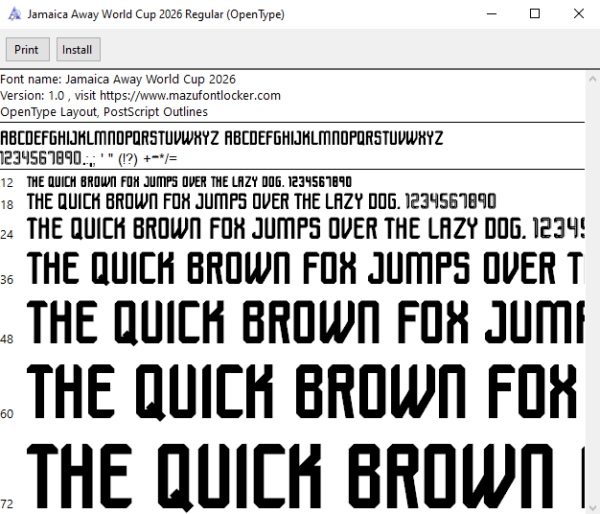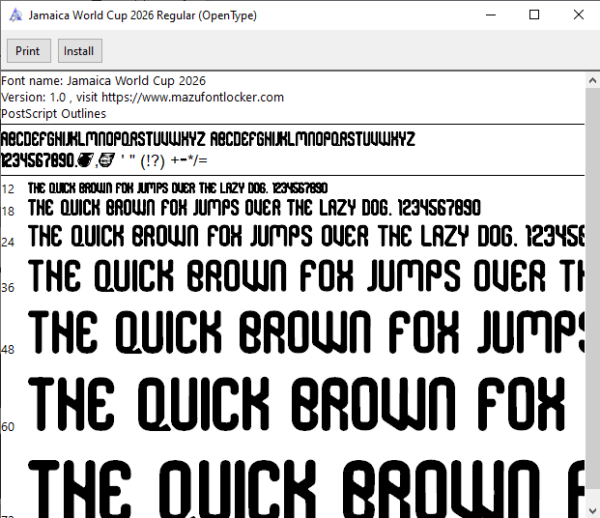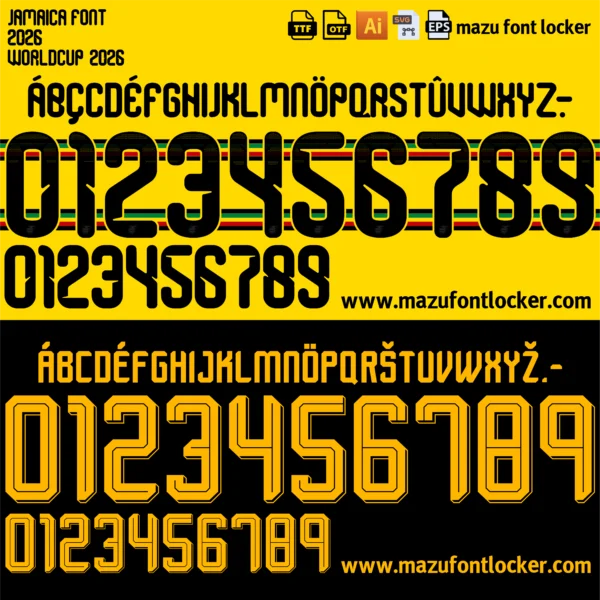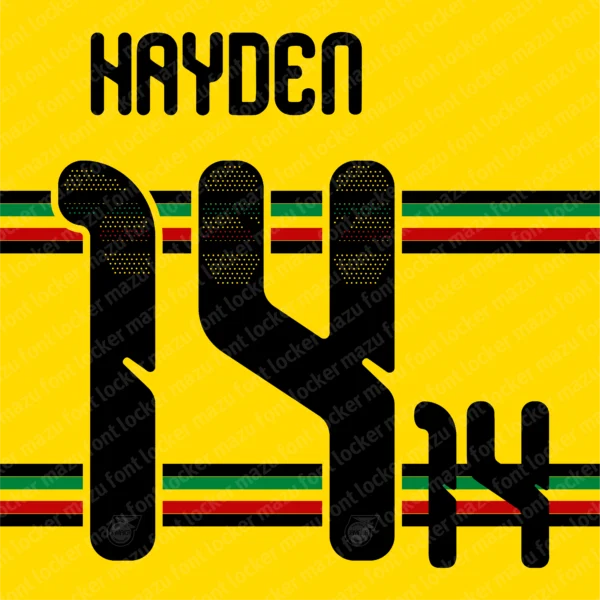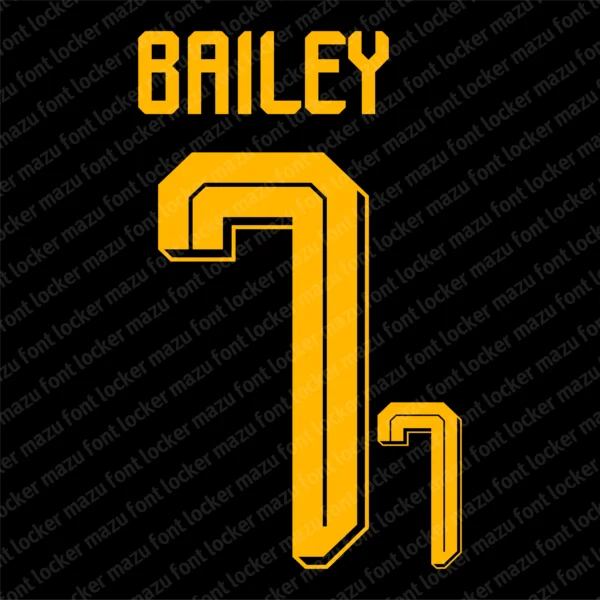
Jamaica World Cup 2026 Font Vector – Epic Reggae Boyz Vibrant Masterpiece
Download the Jamaica World Cup 2026 Font Vector (AI, EPS, SVG, PDF, OTF, TTF) and unleash the bold, powerful, and electrifying match typography that thundered across the stadiums during Jamaica’s historic 2026 World Cup campaign. This font captures the commanding, iconic, and fearless lettering that perfectly embodies the vibrant Reggae Boyz spirit, delivering unmatched passion, explosive energy, fiery Caribbean pride, and pure Jamaican fire for premium jersey mockups, football designs, epic sports visuals, and dominating fan creations.
Jamaica World Cup 2026 Font Vector – Authentic Reggae Boyz Typeface
The Jamaica World Cup 2026 Font Vector is a premium typeface that accurately recreates the official match lettering worn by the Jamaica national team during the 2026 FIFA World Cup campaign. This high-quality vector font kit captures the bold, vibrant, and energetic typography that represents the passion, spirit, and reggae flair of the Reggae Boyz.
Designed for professional designers and passionate Jamaica fans, the Jamaica World Cup 2026 Font Vector delivers perfect authenticity for creating realistic jersey mockups, fan merchandise, matchday posters, social media graphics, and Caribbean football content. It pairs beautifully with the iconic yellow home kit featuring the famous Jamaica crest.
Why Choose Jamaica World Cup 2026 Font Vector
This font stands out because of its sharp vector precision and strong national identity. Every letter and number is crafted to match the exact style used on the players’ shirts during the 2026 World Cup campaign. Whether you are making realistic kit templates or exciting Reggae Boyz content, the Jamaica World Cup 2026 Font Vector gives your designs that authentic Jamaican look.
The letterforms in the Jamaica World Cup 2026 Font Vector are tall, bold, and highly readable. The strokes have a strong, clean weight with excellent edge definition that looks powerful on the back of jerseys while maintaining classic Caribbean energy and modern vibrancy.
• Full uppercase A–Z and numbers 0–9 in authentic Jamaica World Cup 2026 style
• Special Jamaica crest glyph – Press the “:” (colon) symbol to insert the Jamaica logo
• Create highly realistic Jamaica World Cup 2026 home and away jersey mockups with accurate lettering
• Produce custom Jamaica merchandise with the 2026 aesthetic
Jamaica World Cup 2026 Campaign